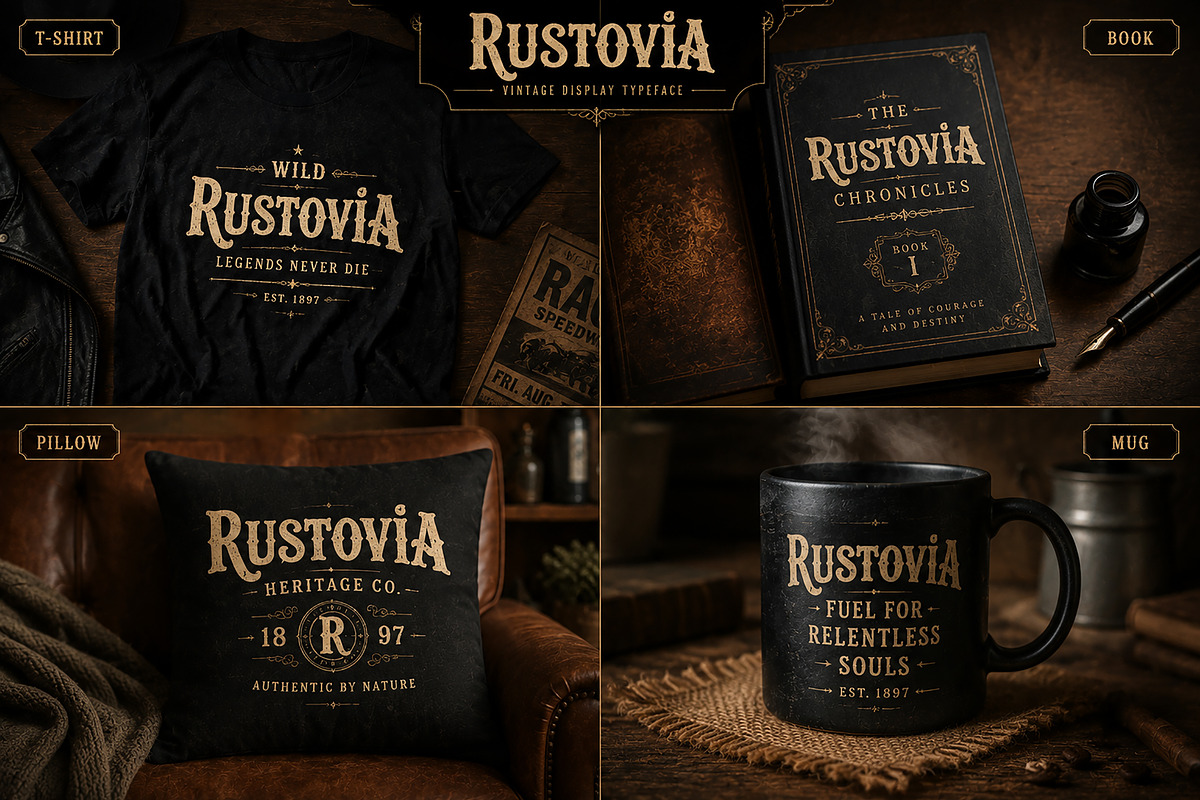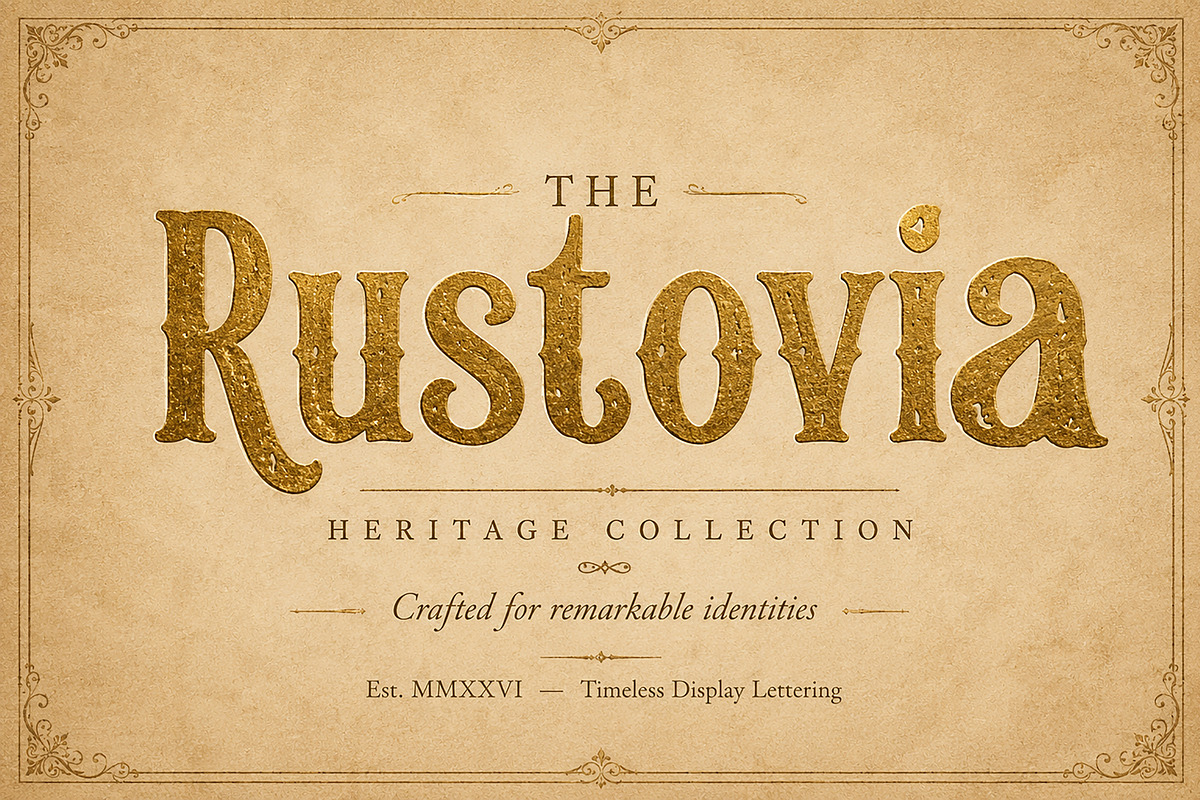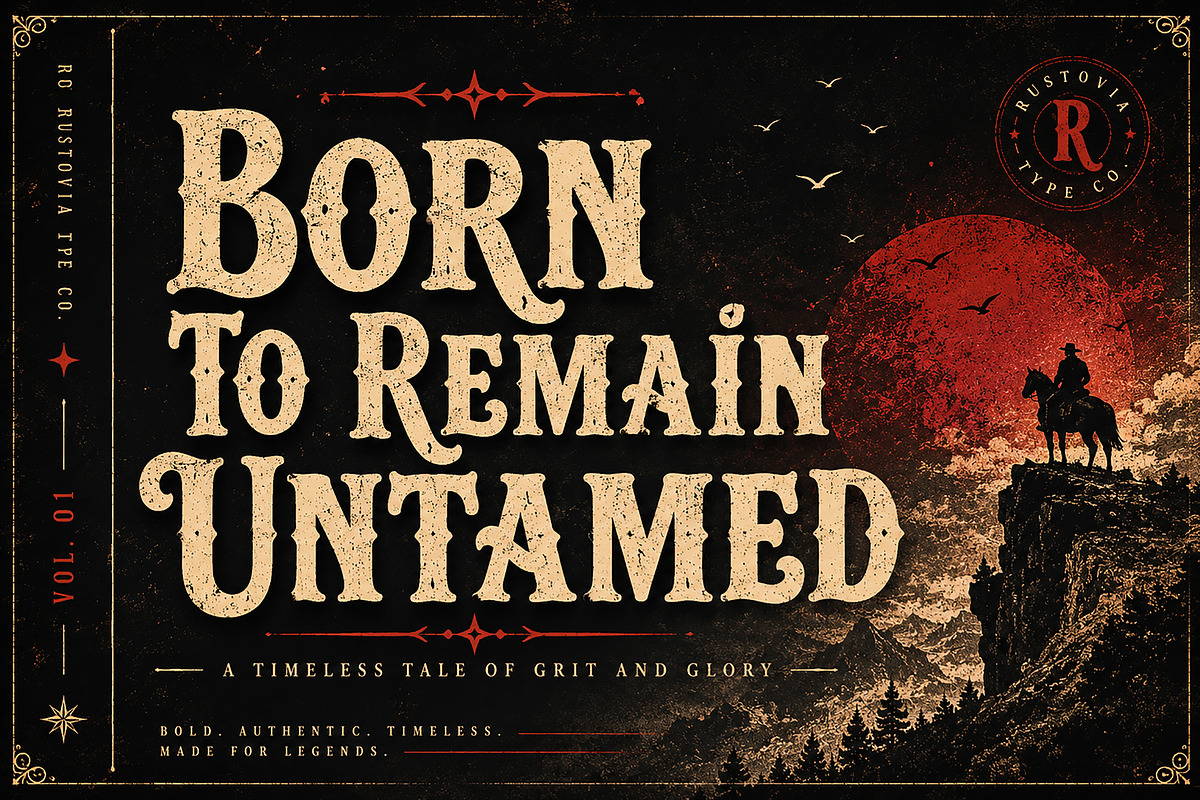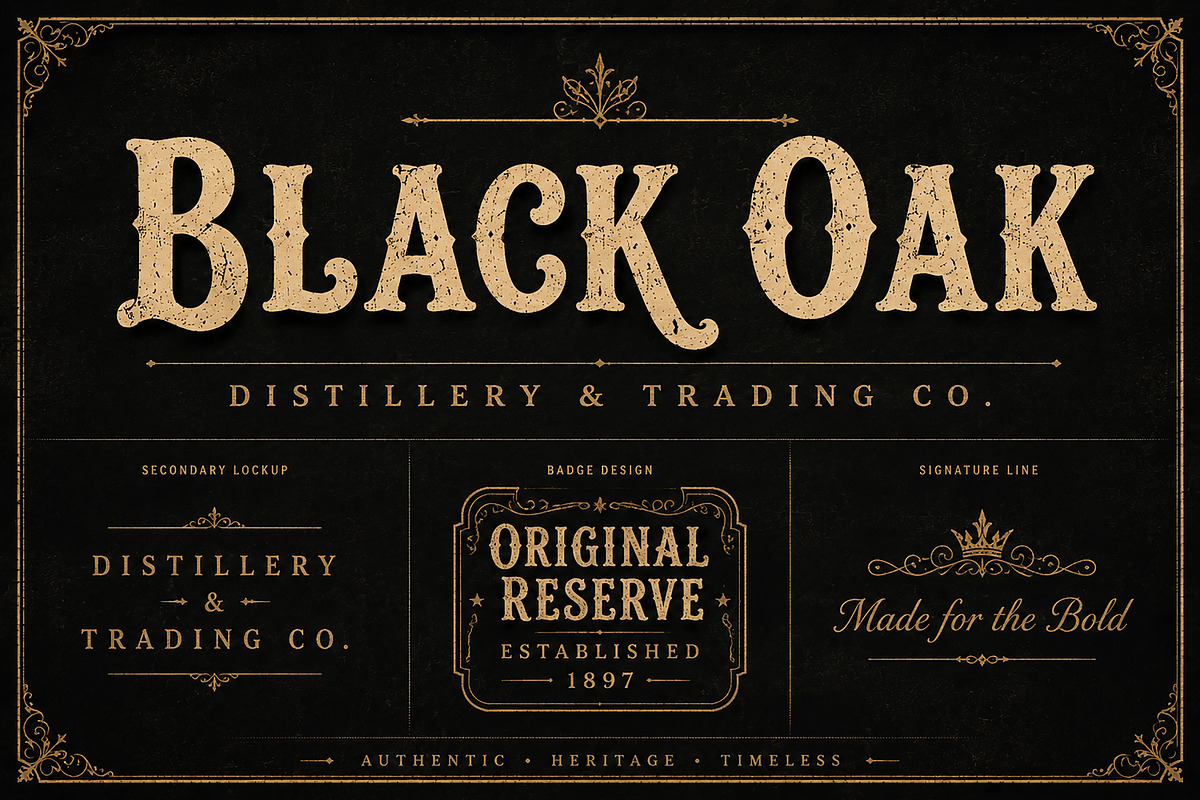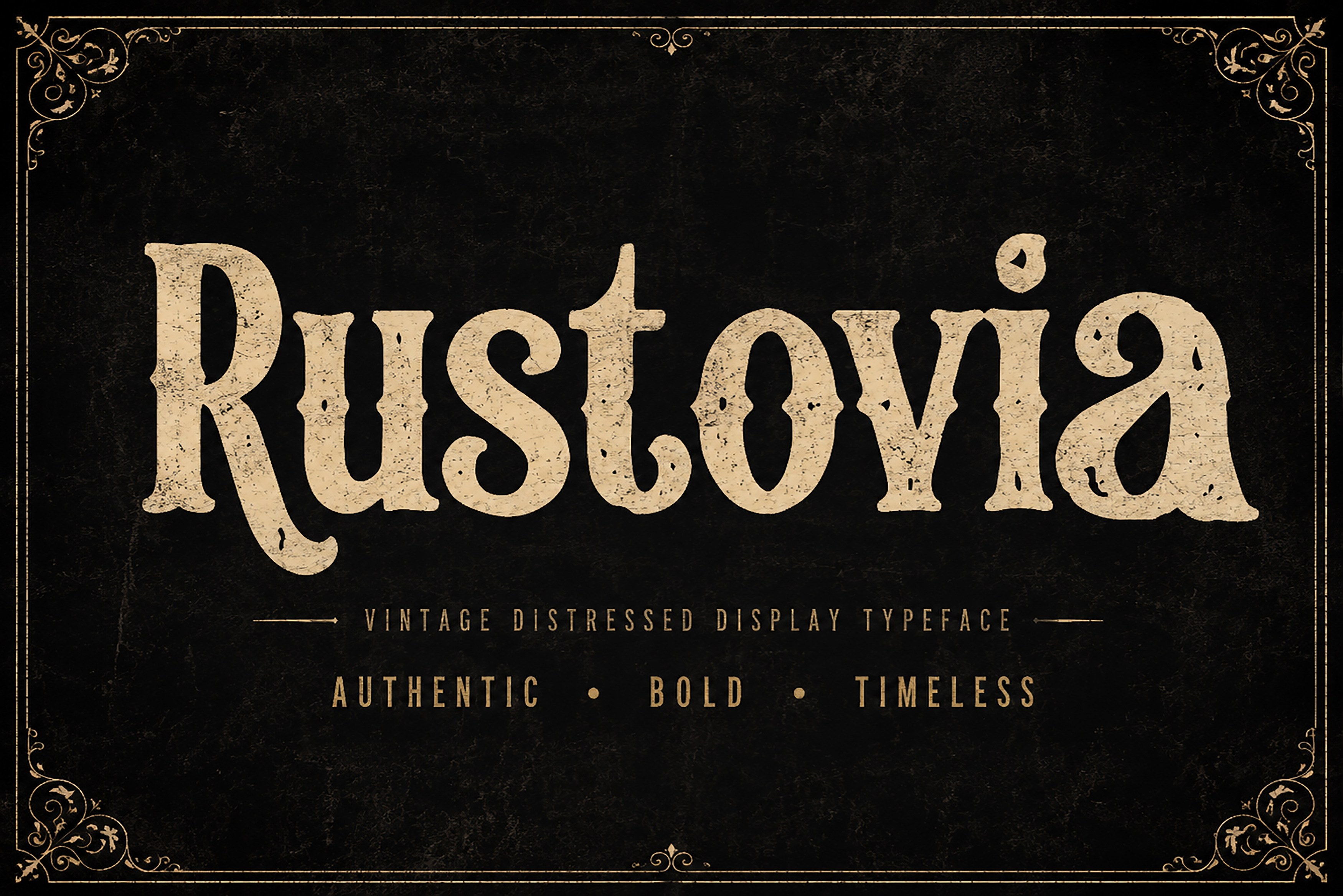
Rustovia – Vintage Display Font
Rustovia – Vintage Distressed Display Font
Rustovia is a bold vintage display typeface inspired by timeless western signage, old book covers, heritage branding, and classic editorial design. Featuring authentic distressed details and strong handcrafted letterforms, it brings character, history, and personality to every project.
Perfect for designers who want to create bold logos, premium packaging, cinematic posters, whiskey labels, apparel graphics, book covers, album artwork, and luxury branding with a distinctive vintage feel.
Rustovia is a handcrafted vintage display font designed to make your work stand out with timeless charm and bold personality.
Inspired by antique typography, old print techniques, western lettering, and heritage branding, Rustovia combines elegant proportions with naturally distressed details to create an authentic handcrafted appearance.
Whether you're designing a premium logo, creating a cinematic poster, or building a heritage-inspired brand identity, Rustovia delivers a strong visual presence without sacrificing readability.
Its bold structure and carefully crafted imperfections make it ideal for projects that demand authenticity, confidence, and classic craftsmanship.
Vintage Branding
Luxury Logos
Whiskey & Brewery Labels
Coffee Packaging
Restaurant Branding
Western Designs
Album Covers
Movie Posters
Editorial Headlines
Apparel & T-shirt Designs
Craft Products
Badge Designs
Signage
Adventure Branding
Heritage Identity
Outdoor Brands
Authentic Vintage Display Typeface
Handcrafted Distressed Letterforms
Bold & High-Impact Design
Strong Readability
Perfect for Large Headlines
Premium Branding Ready
Ideal for Print & Digital Projects
Why You'll Love Rustovia
Rustovia isn't just another vintage font—it's designed to give your projects a timeless identity. From premium branding to cinematic posters, every letter is crafted to capture the feeling of authentic heritage typography while remaining versatile for modern design.